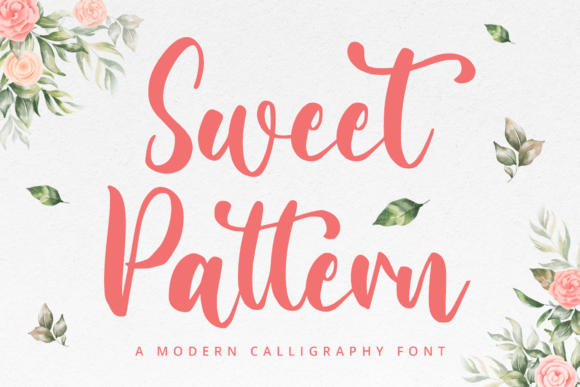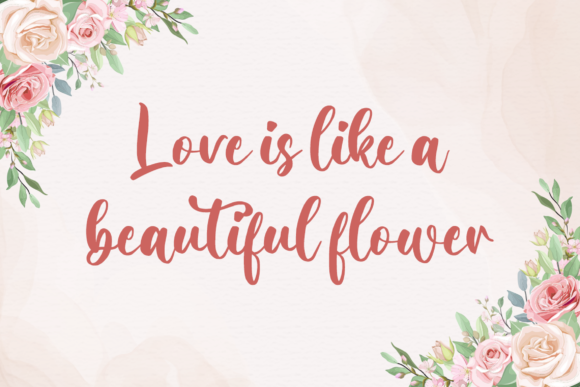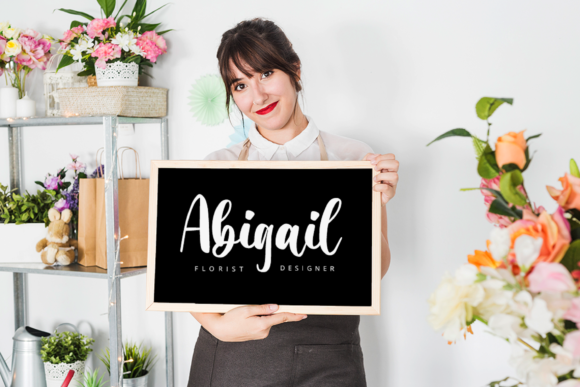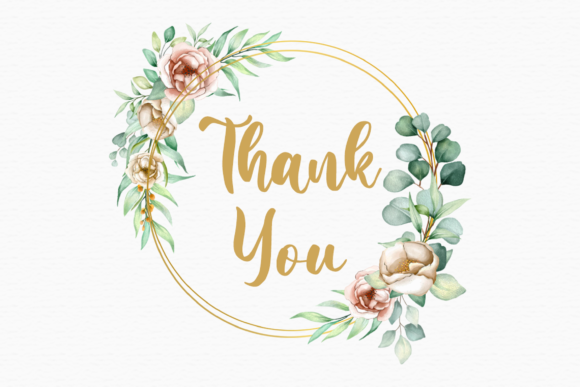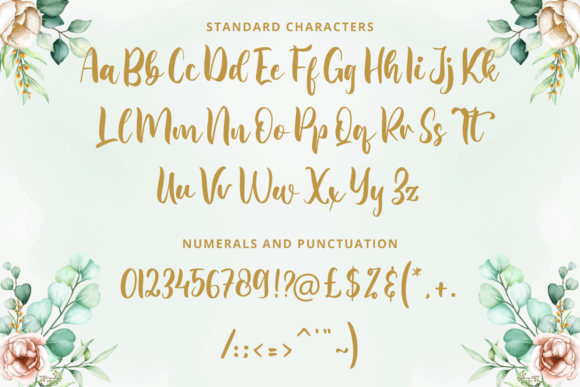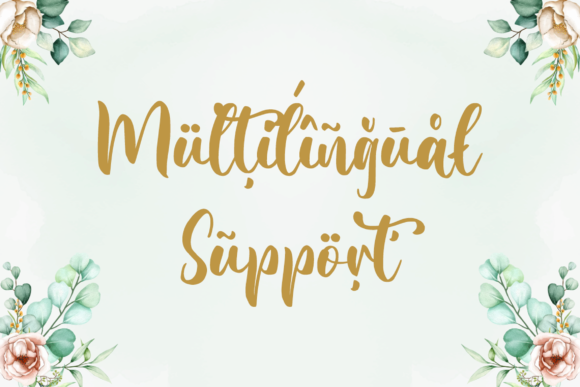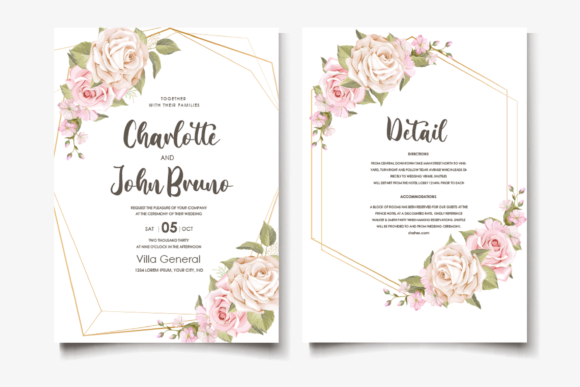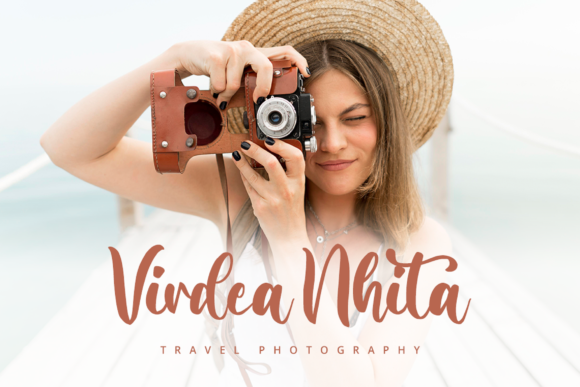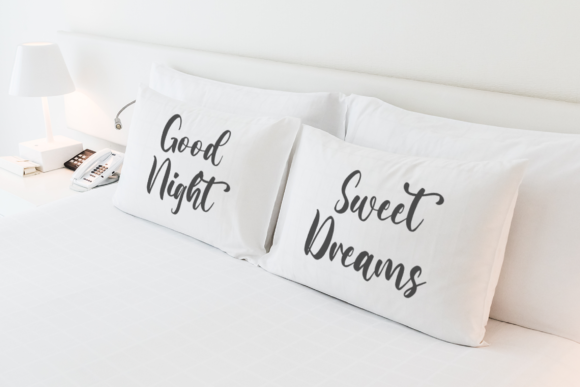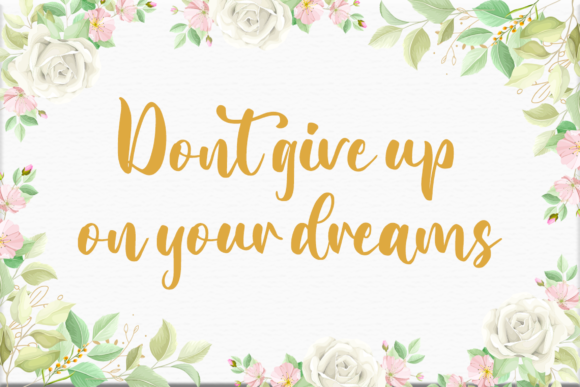
Sweet Pattern Font
About Sweet Pattern Font
Sweet Pattern is a distinctive and refined handwritten font that radiates a sense of elegance and charm. Its intricate details and carefully crafted letterforms make it a perfect choice for a wide range of design projects seeking a personalized and sophisticated touch.
The unique design of Sweet Pattern sets it apart and infuses a sense of individuality into your creations. Its handwritten quality adds an authentic and personal feel, which resonates particularly well with projects that aim to convey heartfelt sentiments and create meaningful connections.
When applied to wedding invitations, Sweet Pattern can evoke a sense of romance and beauty, capturing the essence of the special occasion. The font’s graceful curves and ornate elements add a touch of sophistication, setting the tone for a memorable and elegant celebration.
In the realm of thank you cards, Sweet Pattern helps convey gratitude and appreciation in a visually captivating manner. Its stylish and artistic appearance adds a layer of depth to your message, making each card a unique expression of thanks that recipients will treasure.
Greeting cards adorned with Sweet Pattern exude a sense of warmth and thoughtfulness. Whether it’s for birthdays, anniversaries, or other special occasions, the font’s elegant flow enhances the overall aesthetic and sentiment of the card, leaving a lasting impression on the recipient.
The versatility of Sweet Pattern extends to logo design and branding. By incorporating the font into your logo, you can infuse your brand identity with a touch of sophistication and creativity. The handwritten elements convey a sense of authenticity, while the font’s elegant appearance adds a sense of refinement to your visual identity.
Despite its ornate details, Sweet Pattern maintains readability and legibility, ensuring that your message is effectively communicated to your audience. Its balanced design allows for easy reading, while its stylish flourishes add an element of visual interest.
Overall, Sweet Pattern is a unique and elegant handwritten font that adds a personalized and sophisticated touch to a variety of design projects. From wedding invitations to logos, its refined appearance and intricate details make it an excellent choice for creating visually captivating and meaningful creations that leave a lasting impression.